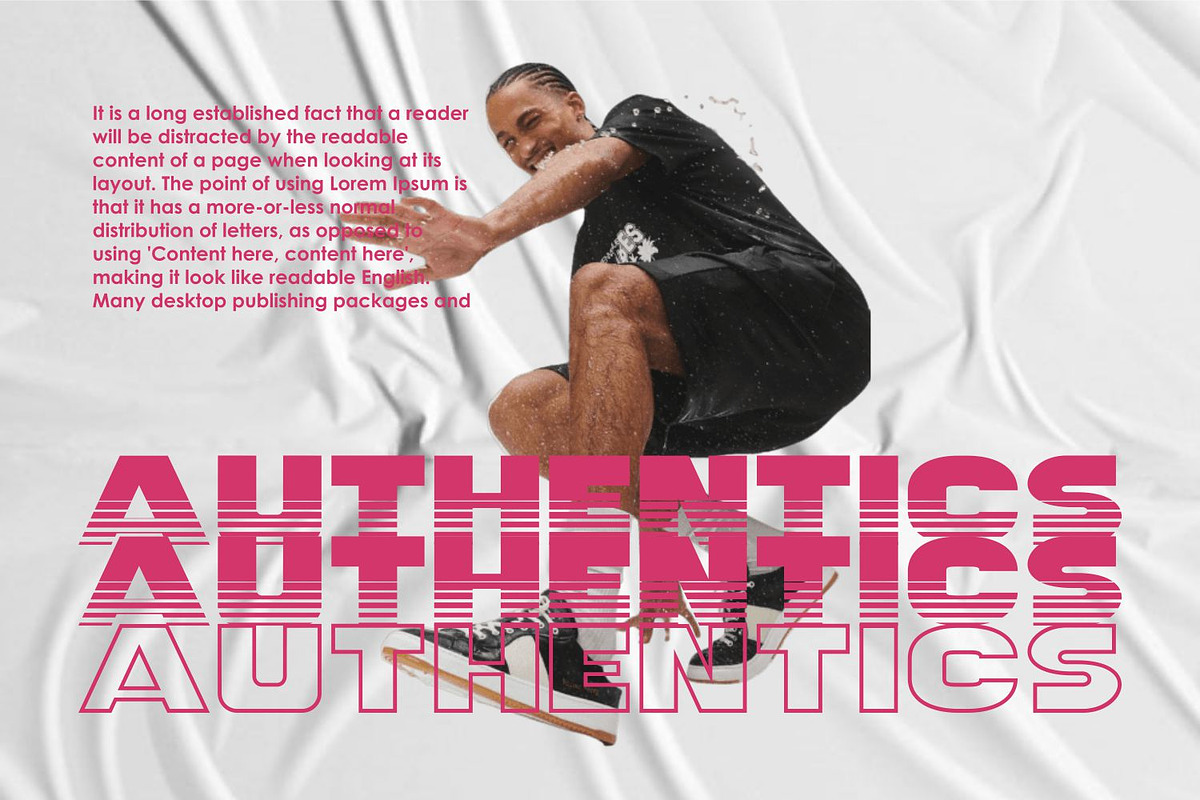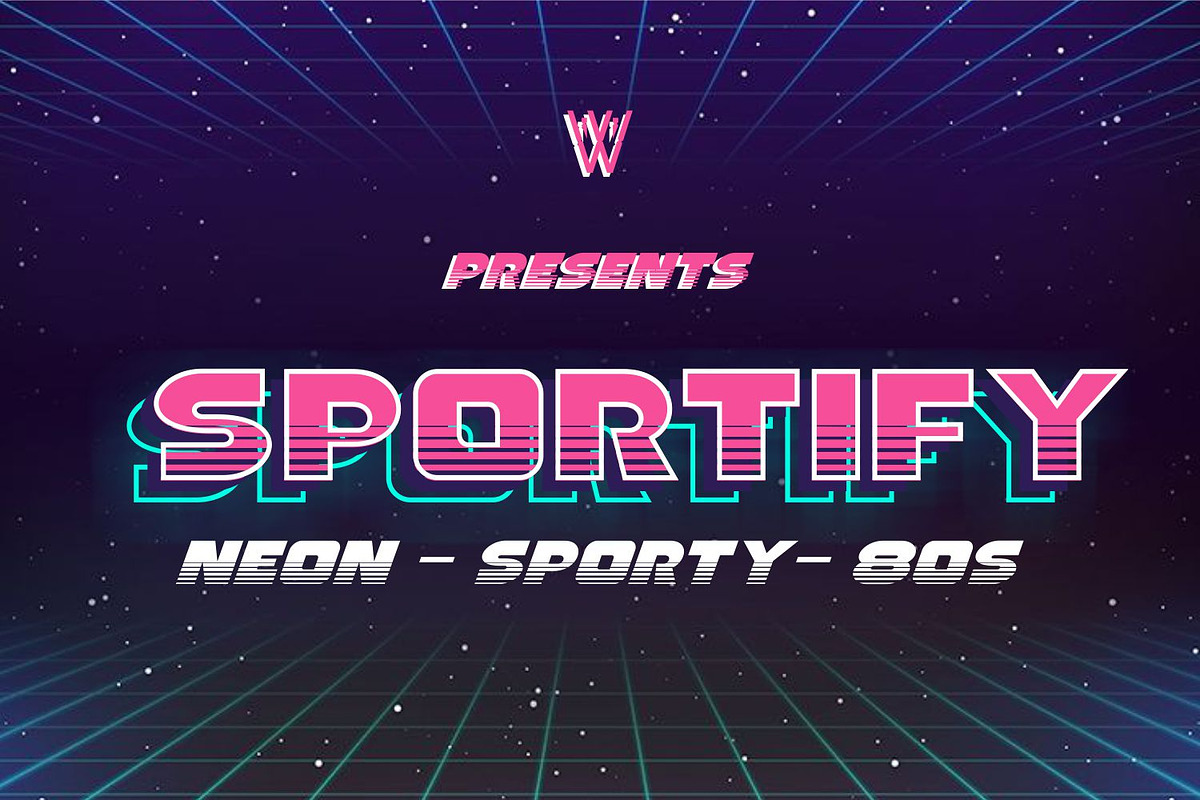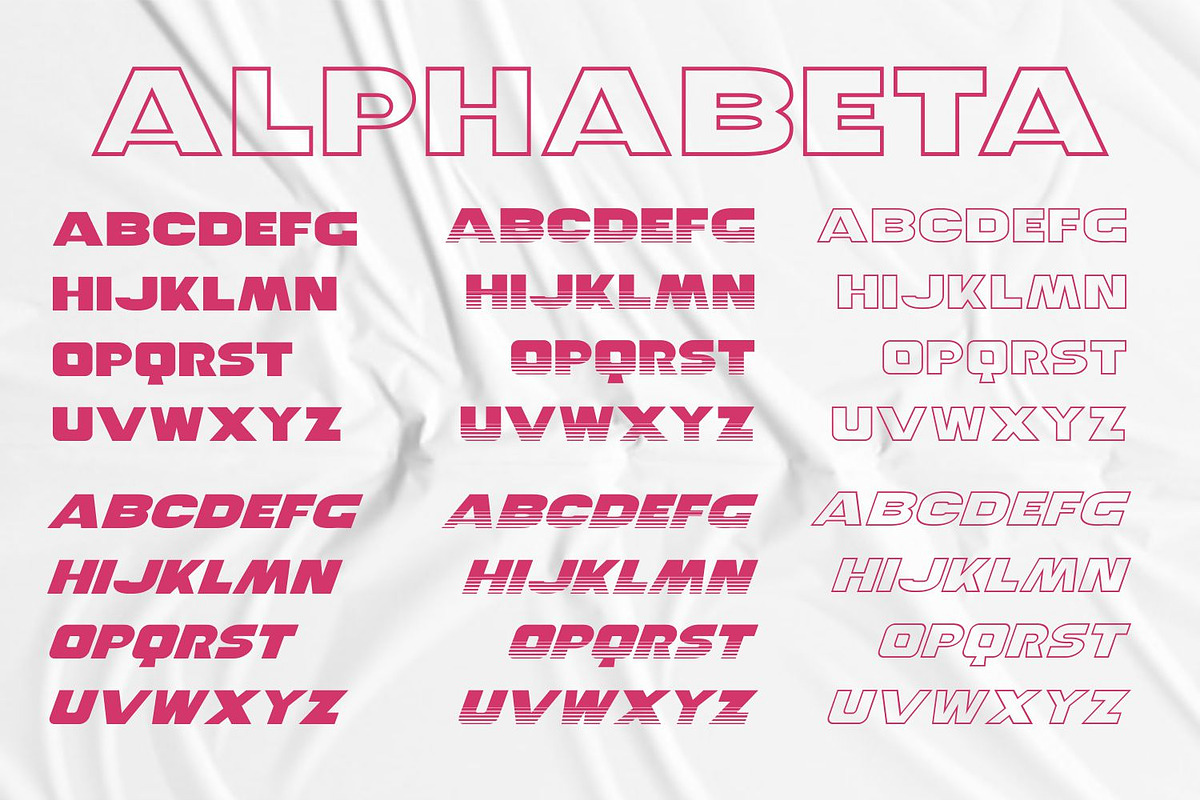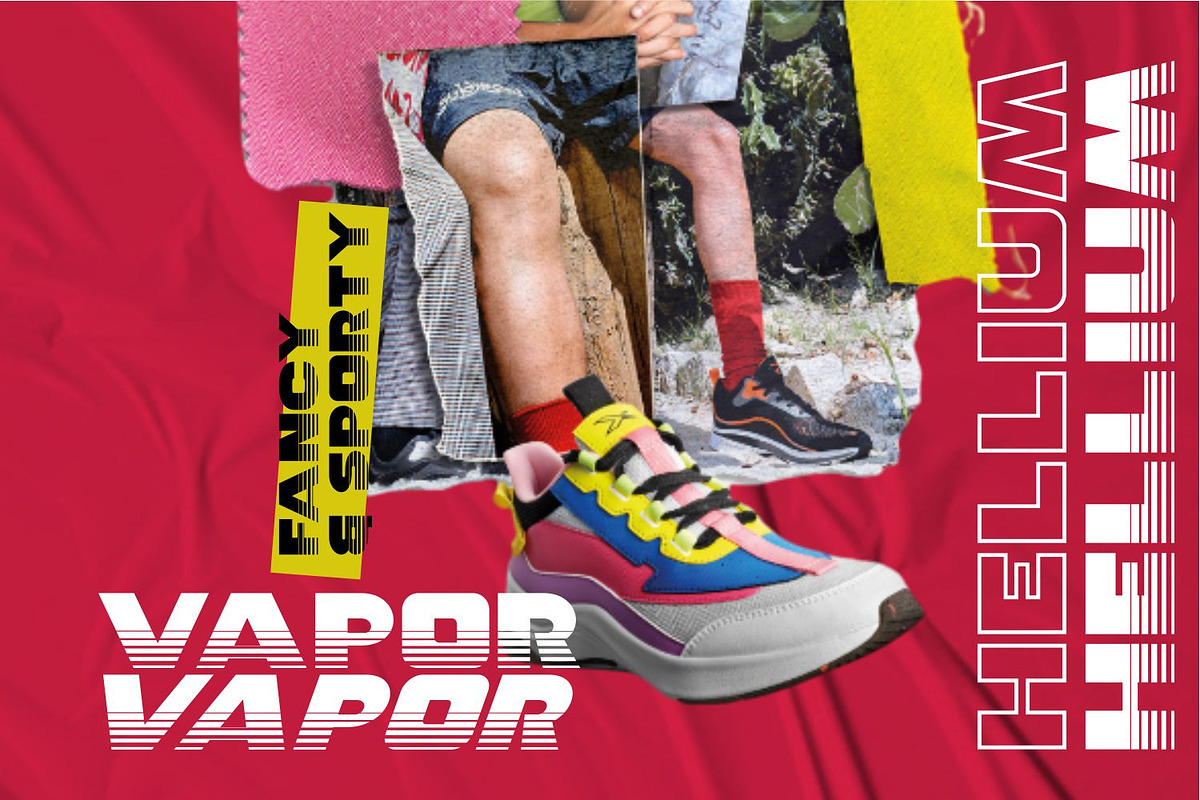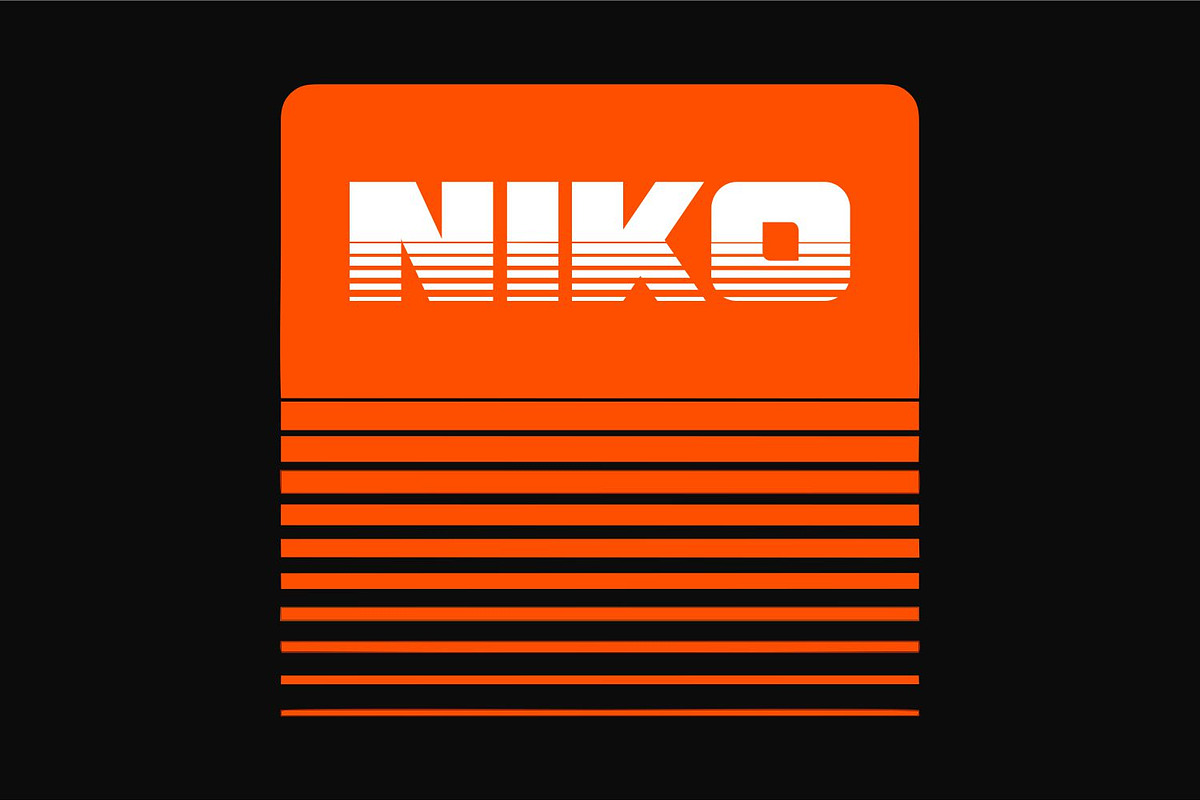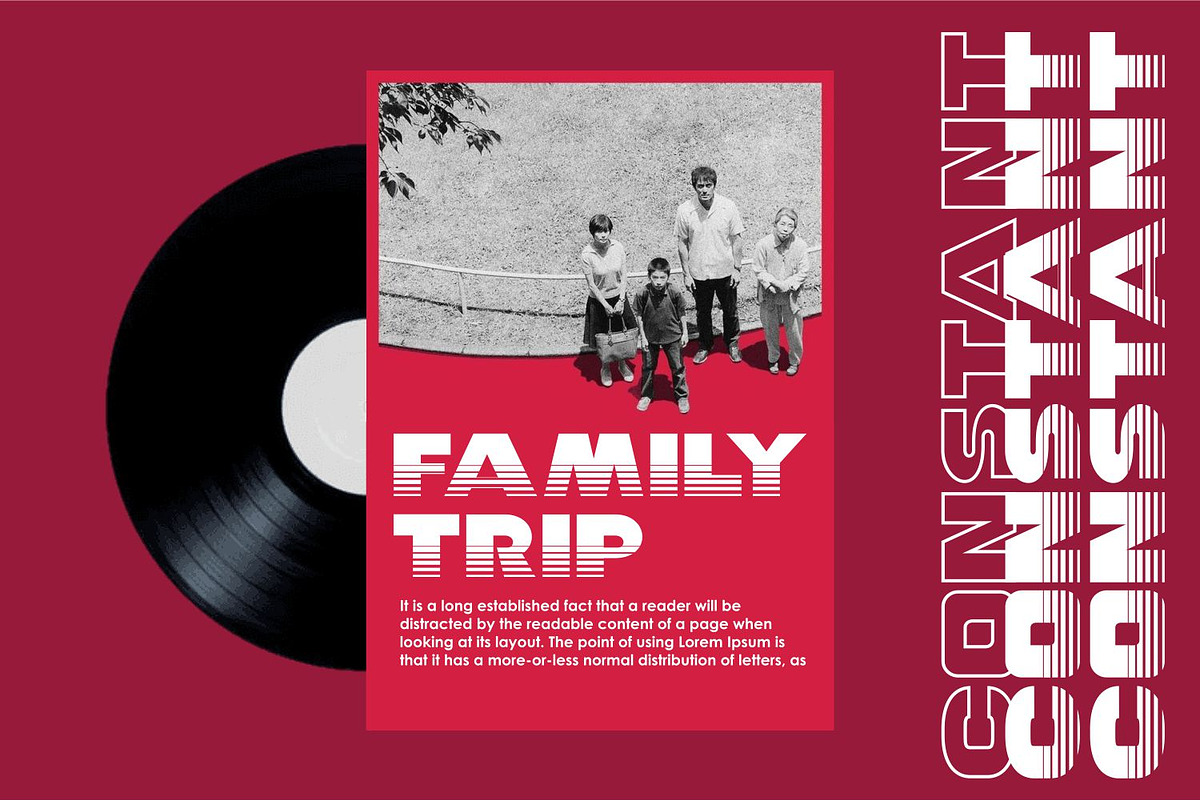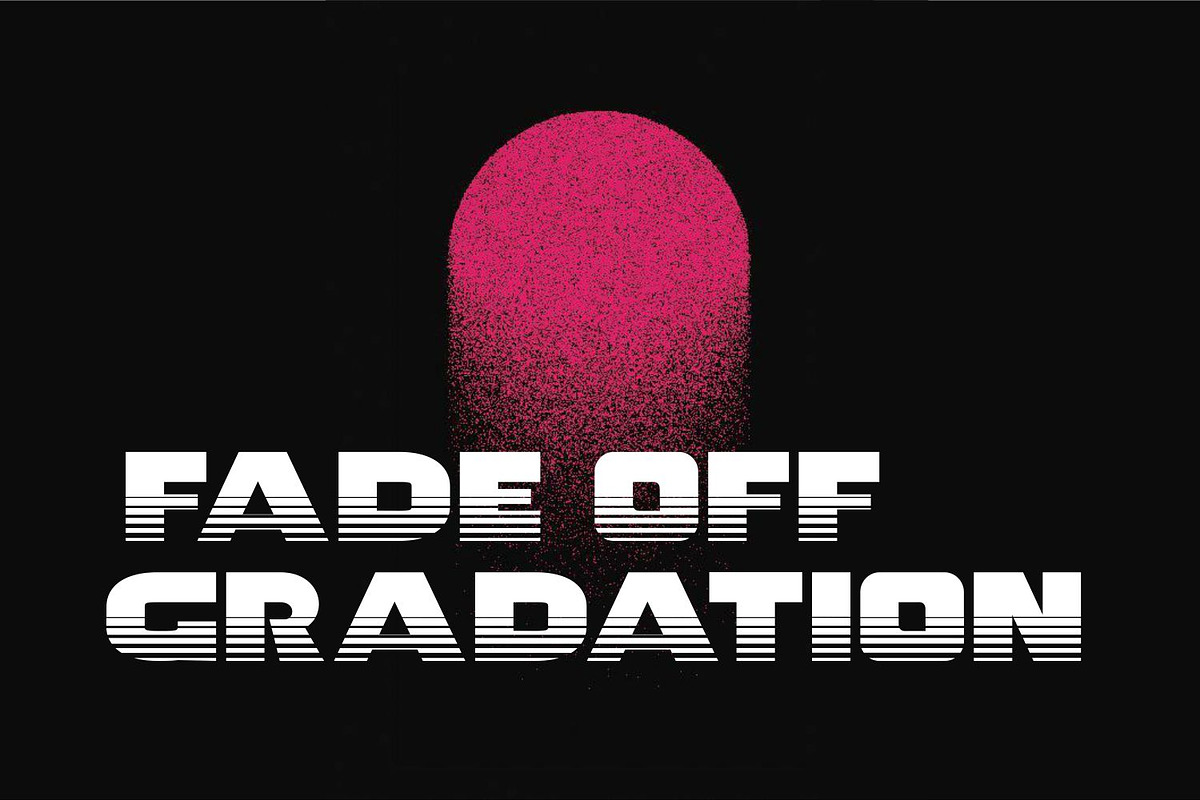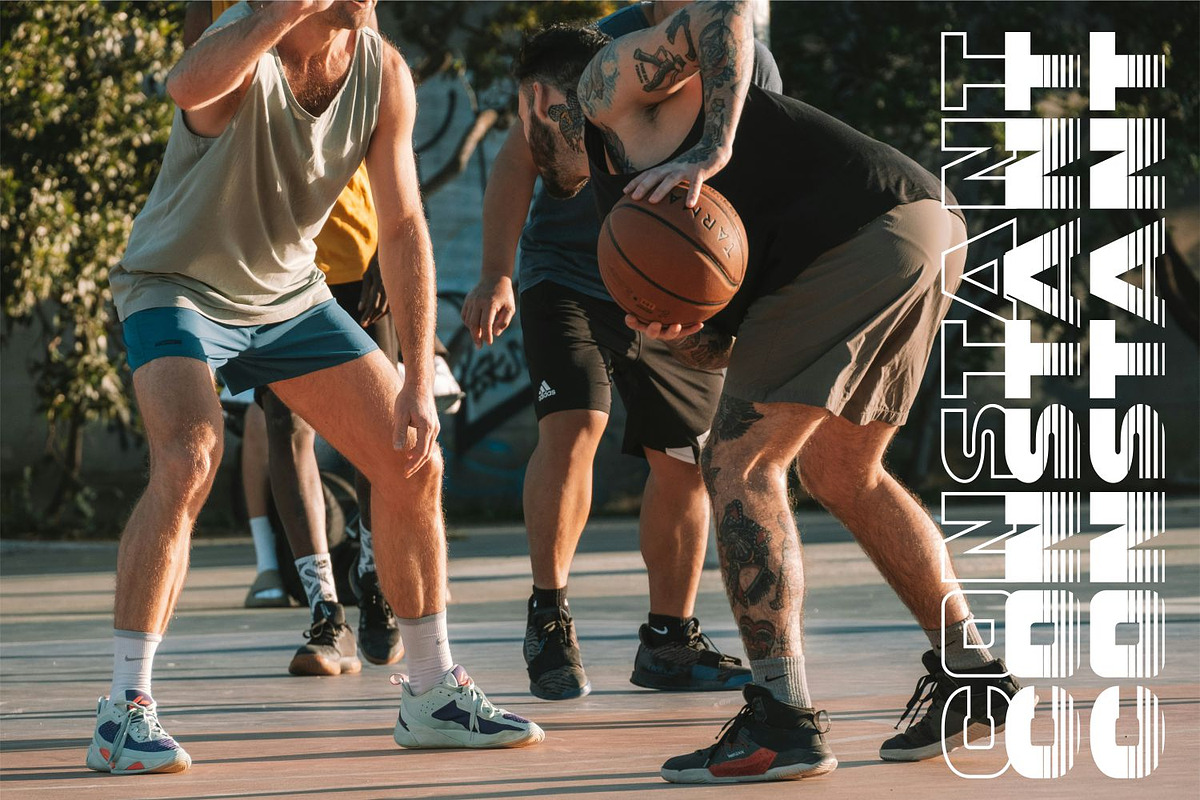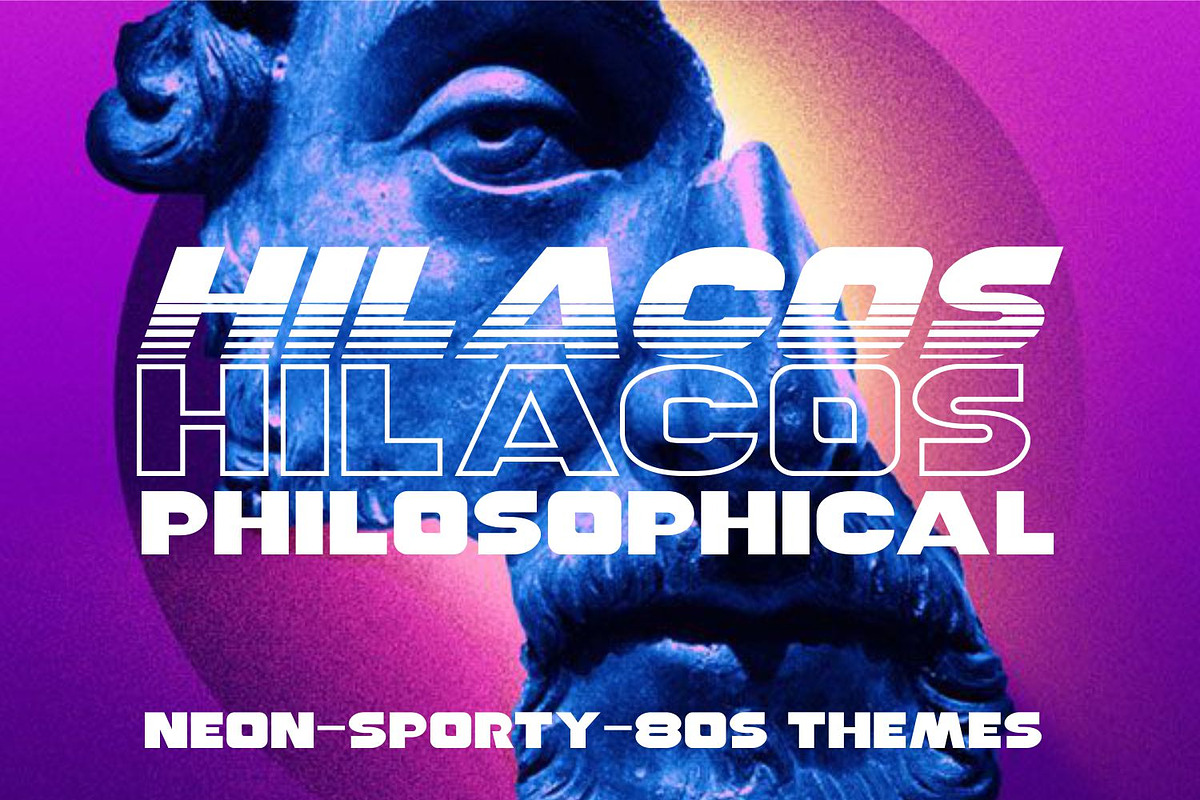
Sportify 80s Font | Sporty Font
The Sportify Font is a bold and dynamic typeface that embodies the spirit of the 80s with its energetic and sporty design. Inspired by retro athletic aesthetics, this font features sharp angles, strong lines, and a sense of movement that captures the essence of competition and action. Whether you’re designing team logos, sports jerseys, or event posters, the Sportify Font adds a bold and commanding presence that demands attention. Its retro-futuristic vibe and boldness make it perfect for conveying the nostalgia and excitement of the 80s in your designs.